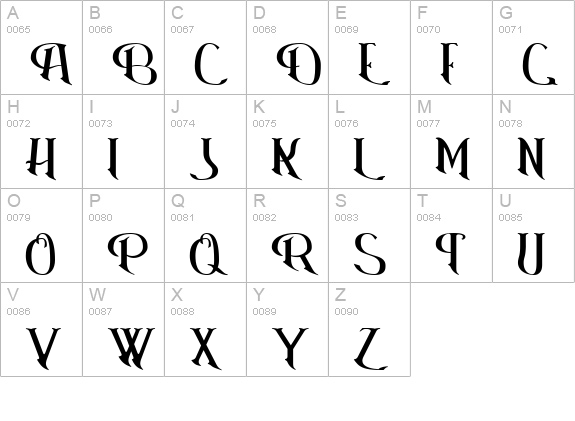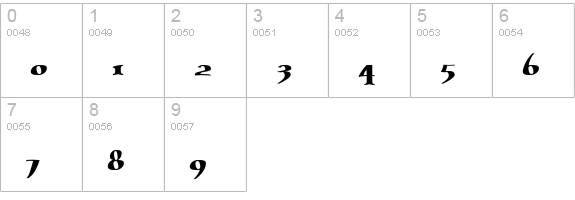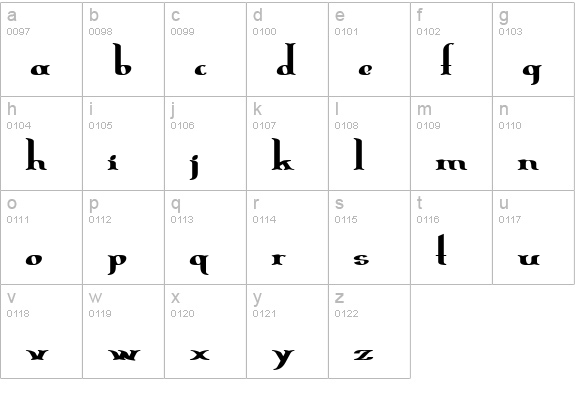
Erasmus font is a versatile and elegant typeface that exudes sophistication and charm. Its timeless design features delicate serifs and a balanced structure that make it perfect for a wide range of design projects. Whether you're creating a classic wedding invitation or a modern logo, Erasmus font will add a touch of refinement to your work. What's even better is that Erasmus font is completely free to download at FontsMarket.com! This means you can elevate your designs without breaking the bank. Don't miss out on the opportunity to enhance your projects with this beautiful and versatile font. Download Erasmus font today and take your design game to the next level!